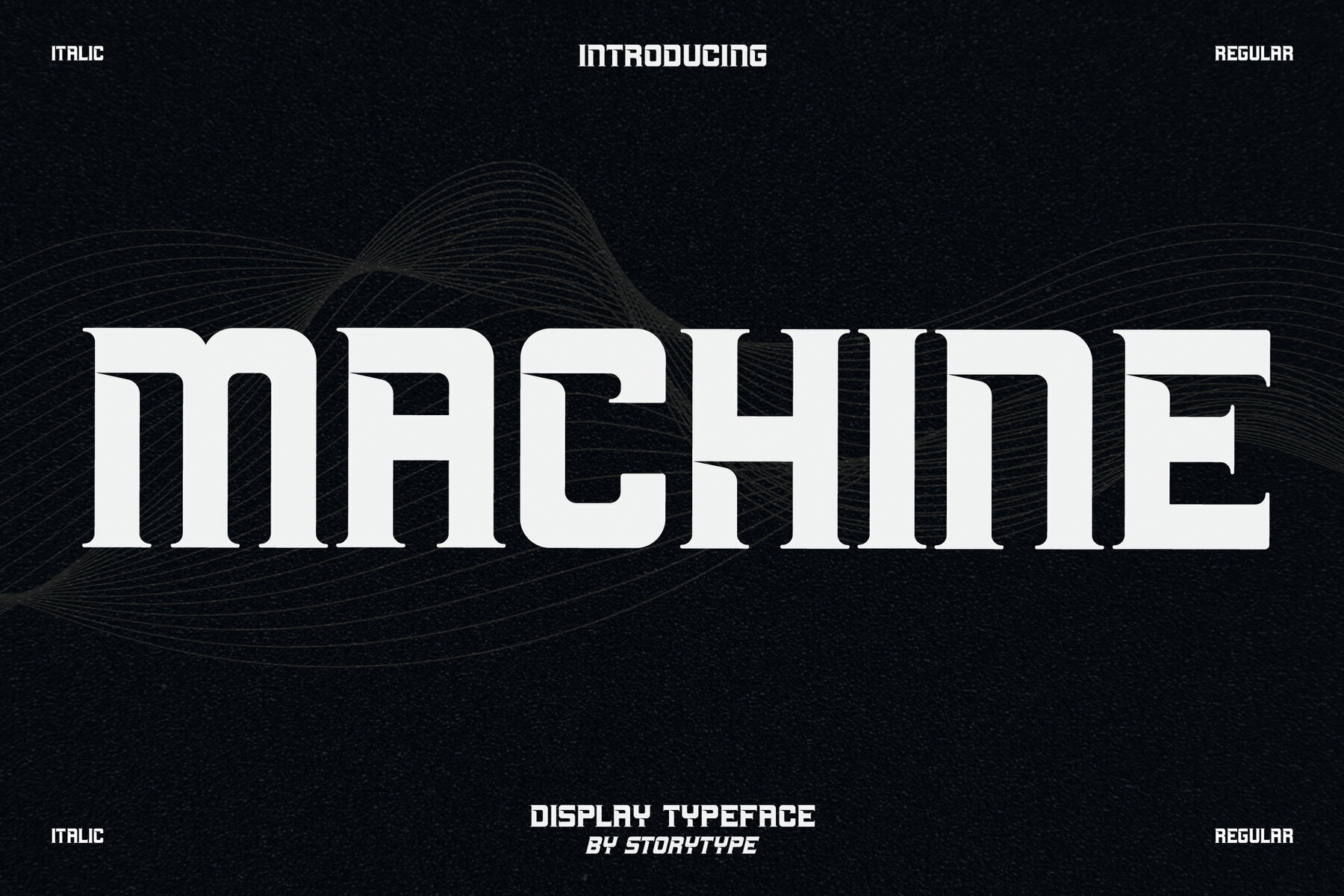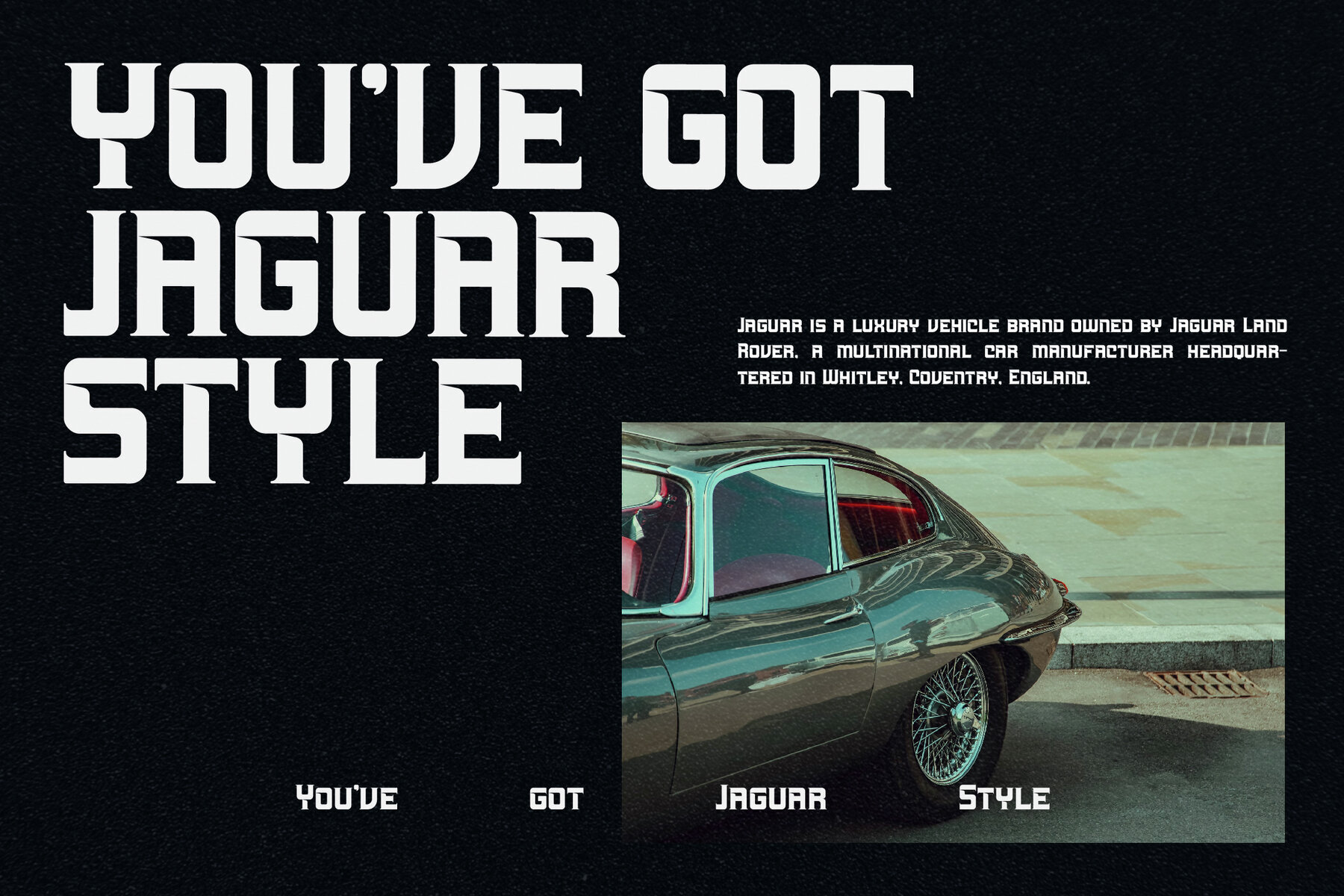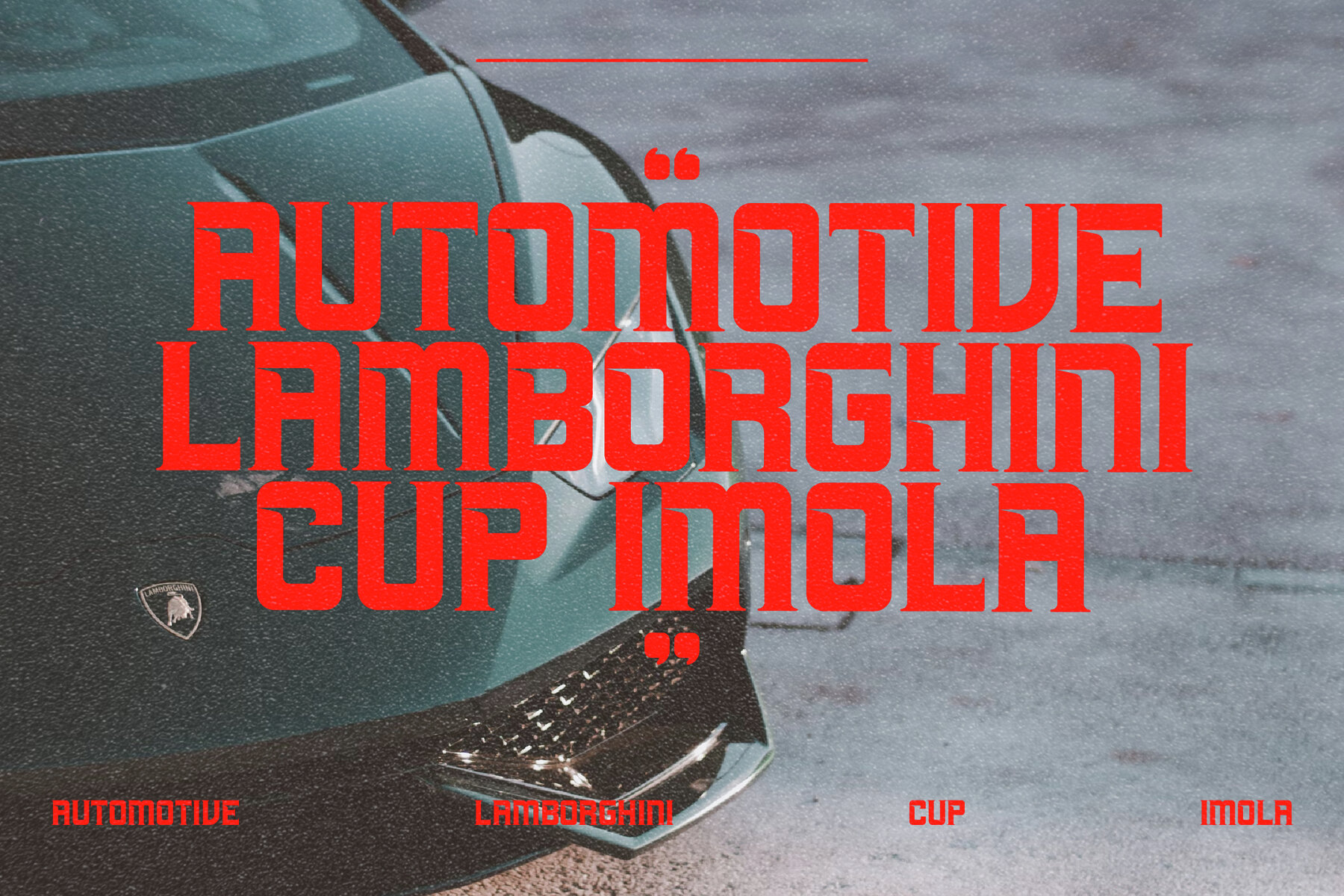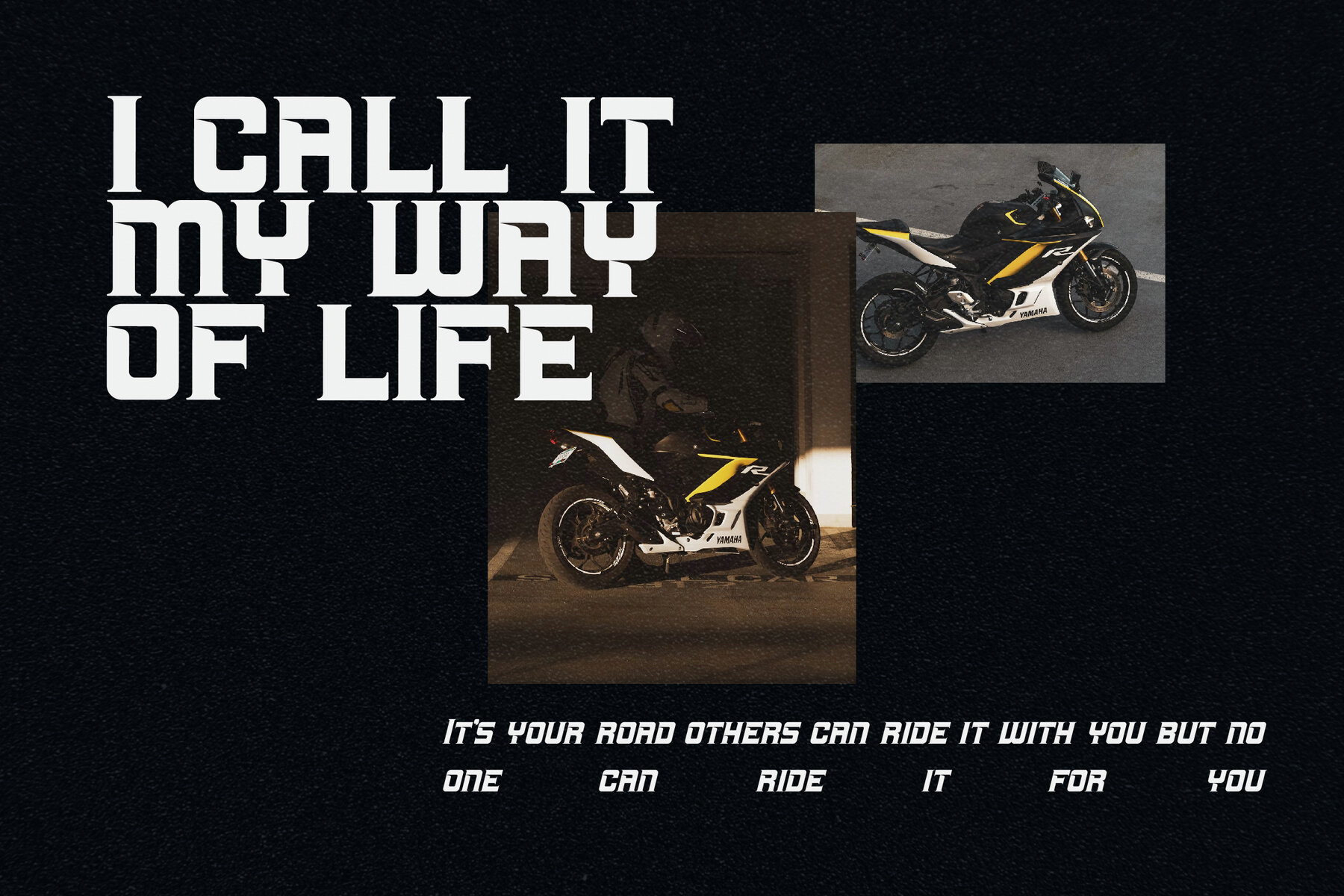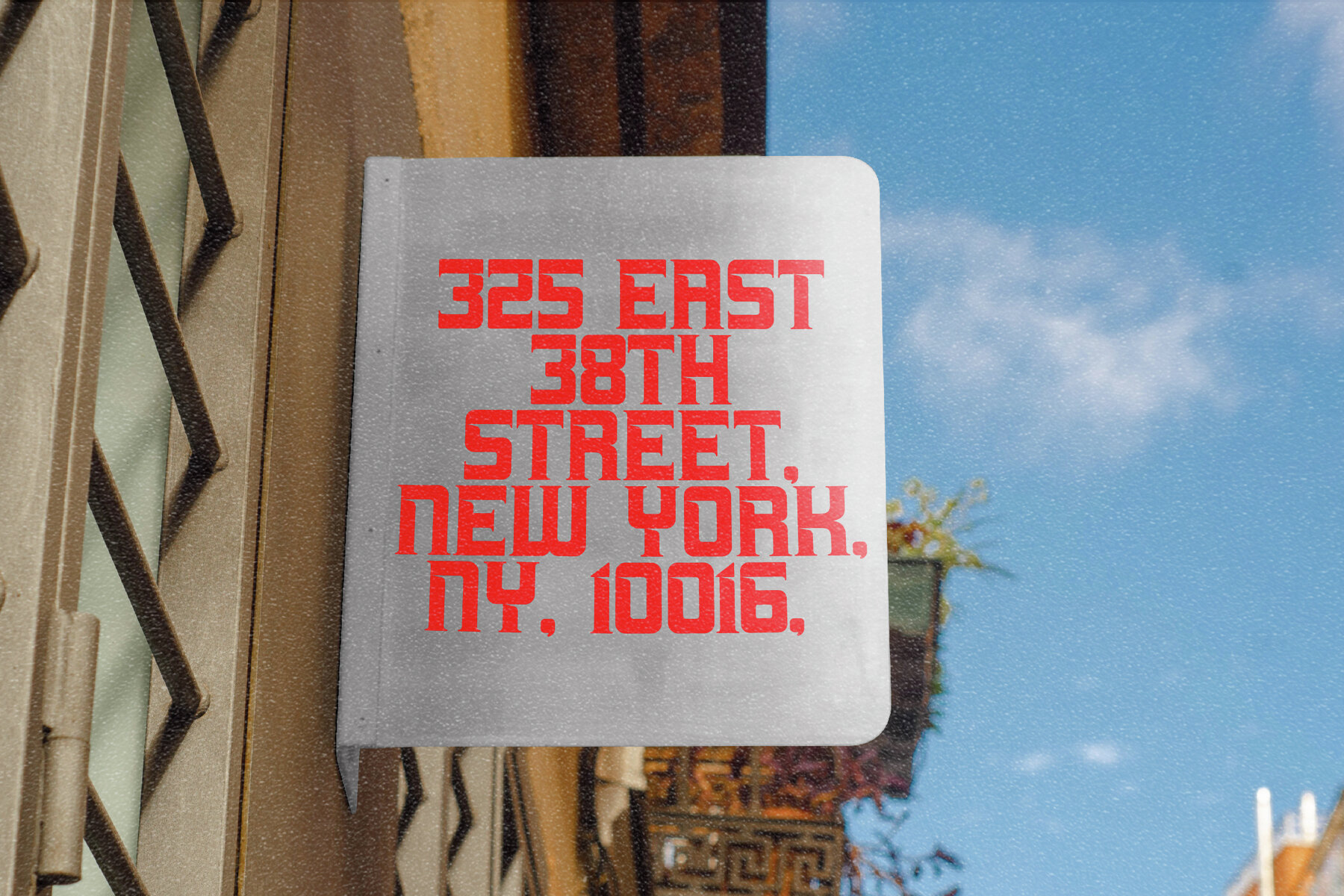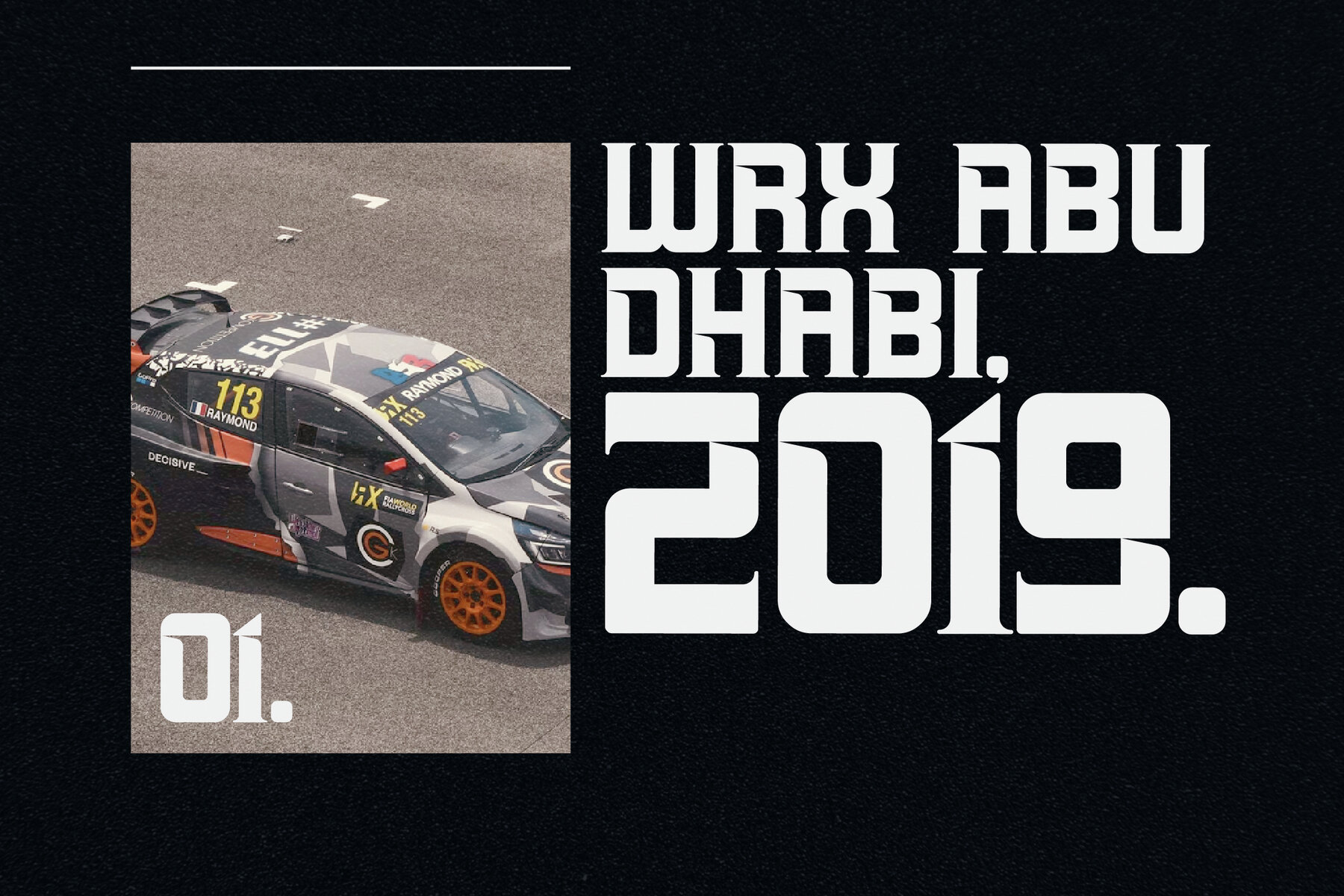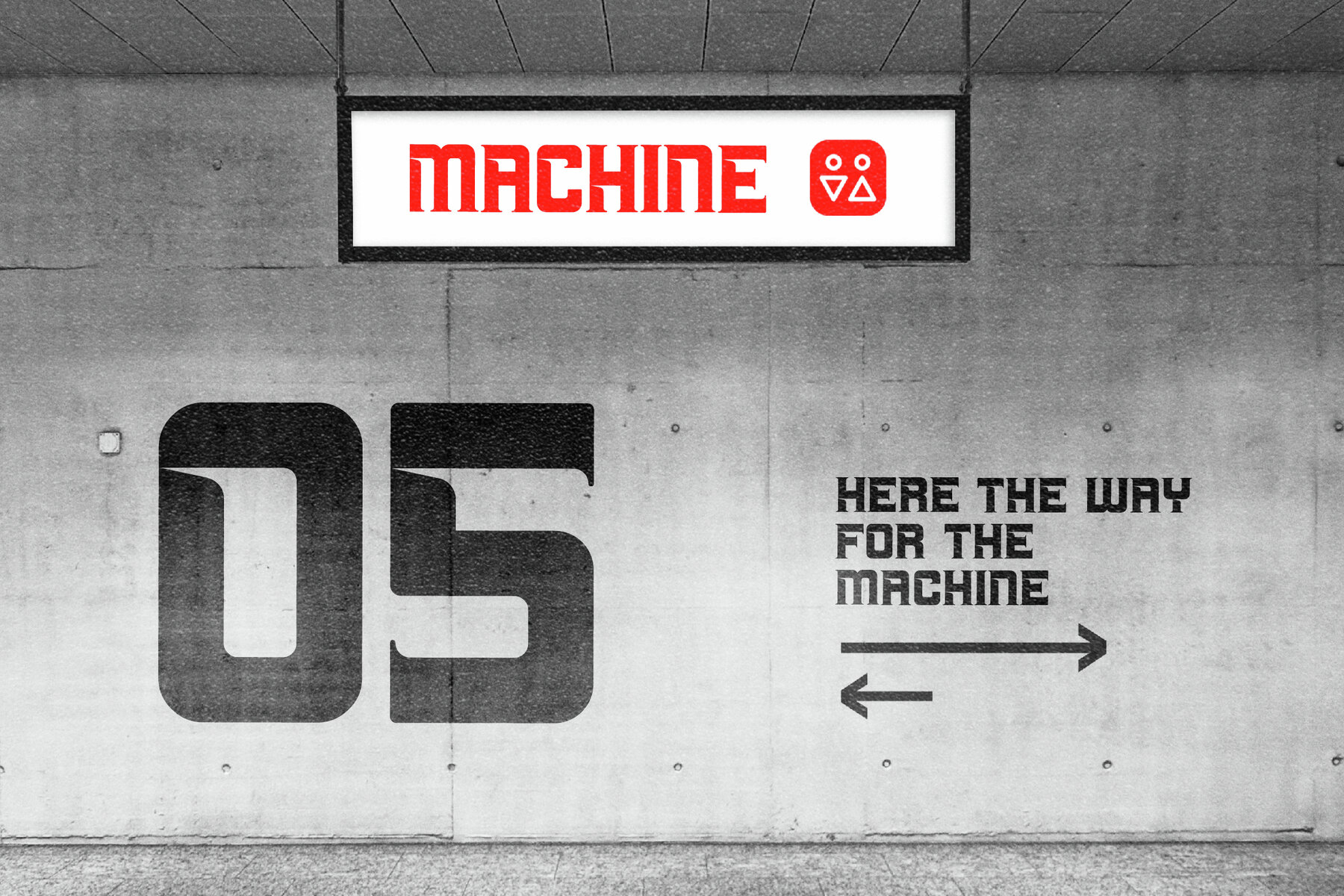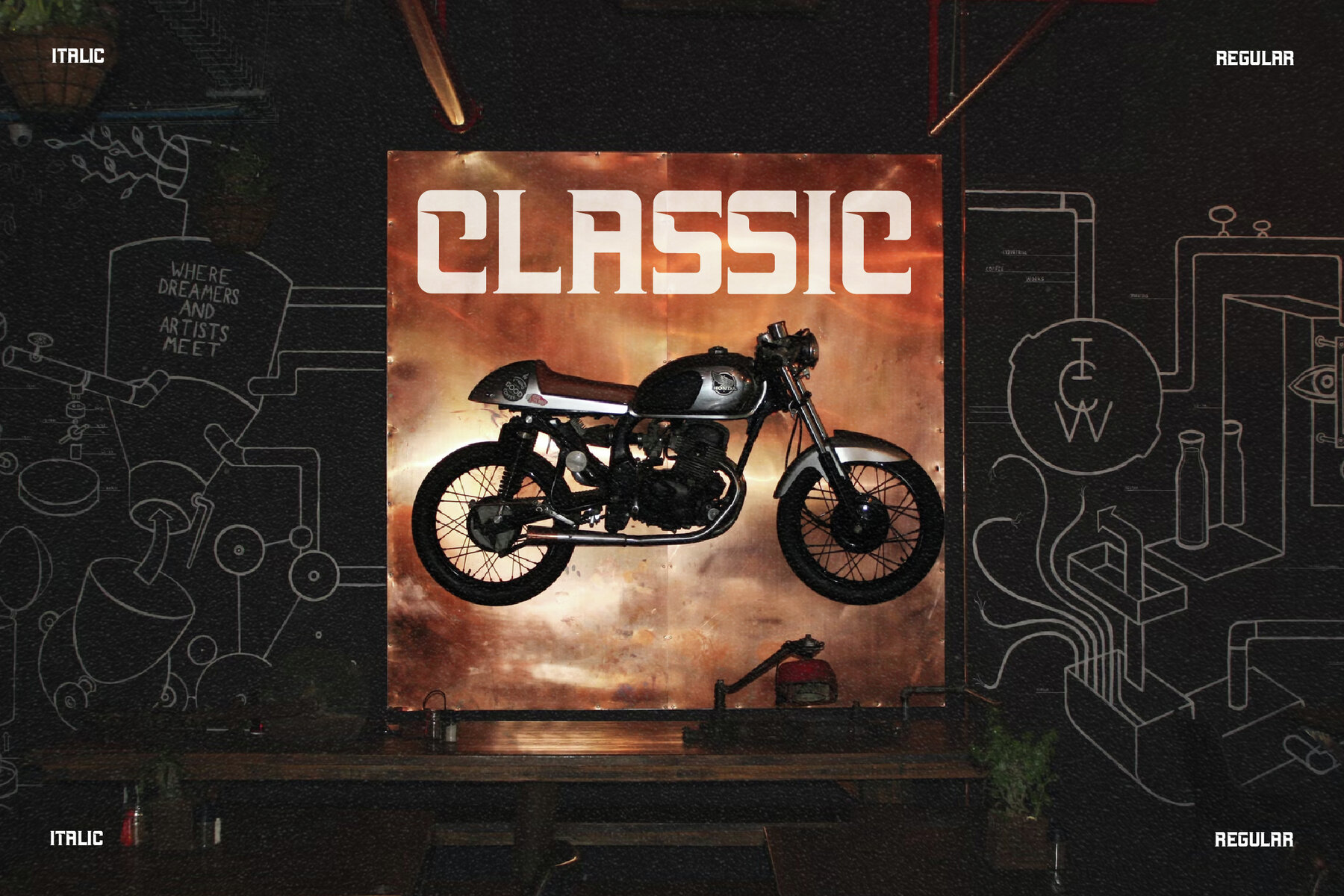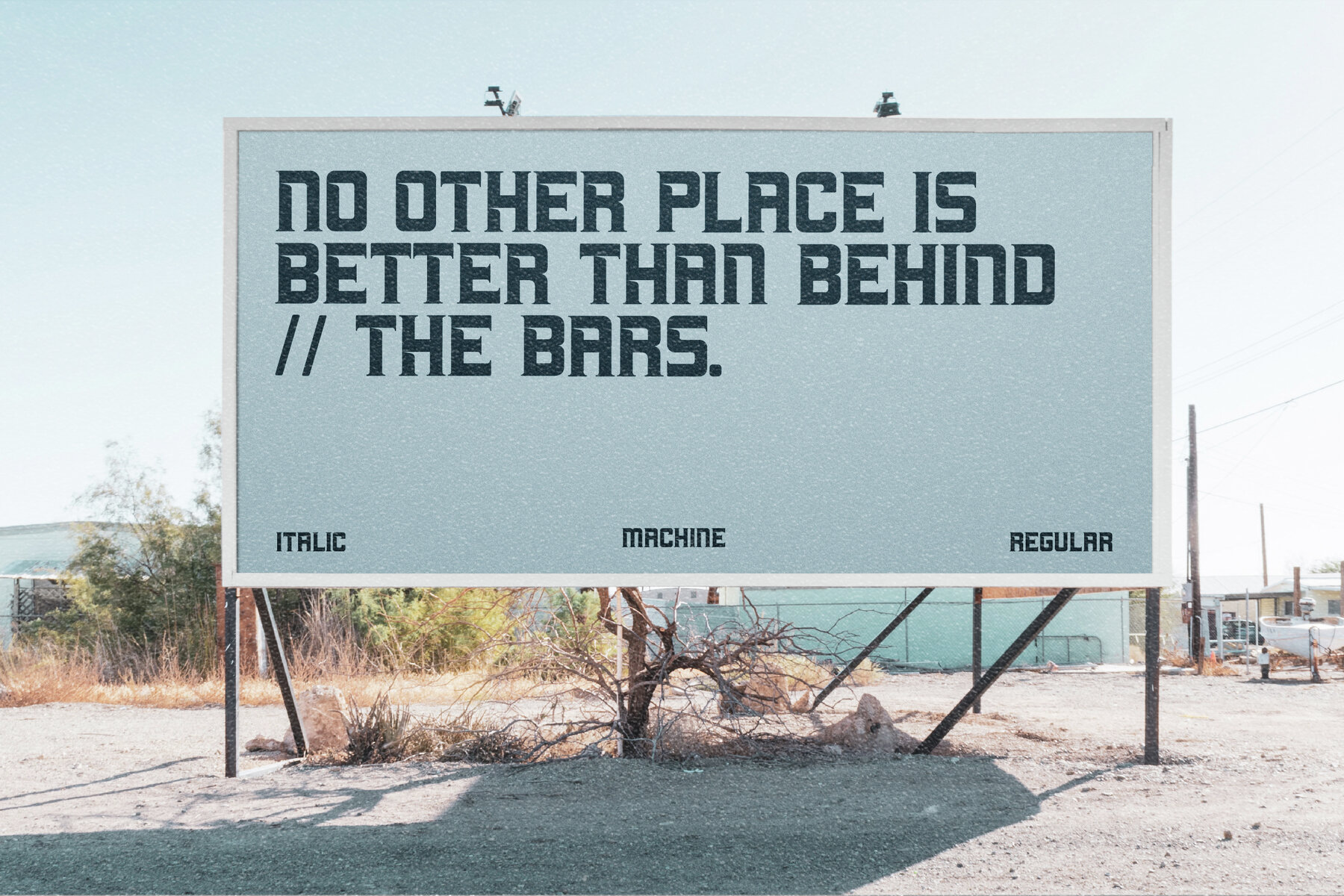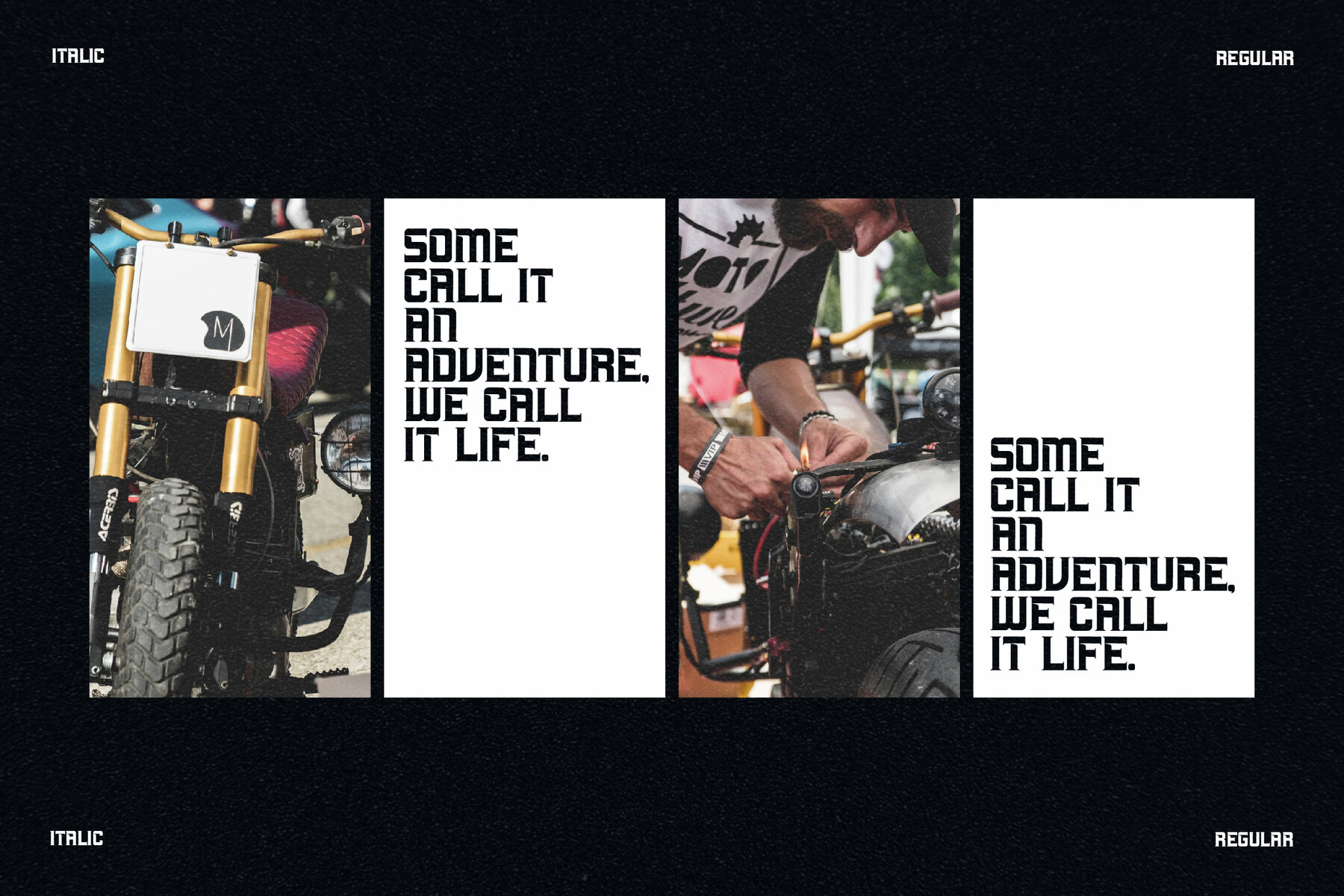
MACHINE Font
The MACHINE typeface, skillfully crafted by Storytype, embodies a perfect blend of modernity and classic elegance. Its distinct style makes it an ideal choice for creating luxury logos, compelling book or movie titles, and sophisticated fashion branding. Whether you're designing a magazine or crafting memorable quotes, this typeface will infuse your work with a sense of refinement.Features